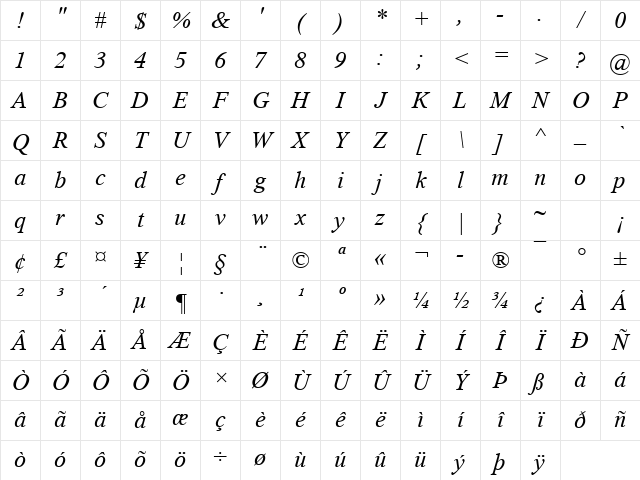
Thorndale Italic Free Font
Thorndale Italic
Foundry: Agfa Monotype Corporation
Designer: Agfa Monotype Drawing Office
Design Context for Thorndale
Thorndale is a composed and adaptable typeface that performs quietly and consistently across a wide range of design contexts. The slanted form adds forward momentum and visual energy.
Pro Tip: Use Thorndale for emphasis, pull quotes, and subheadings where its slanted energy can add rhythm to the layout.